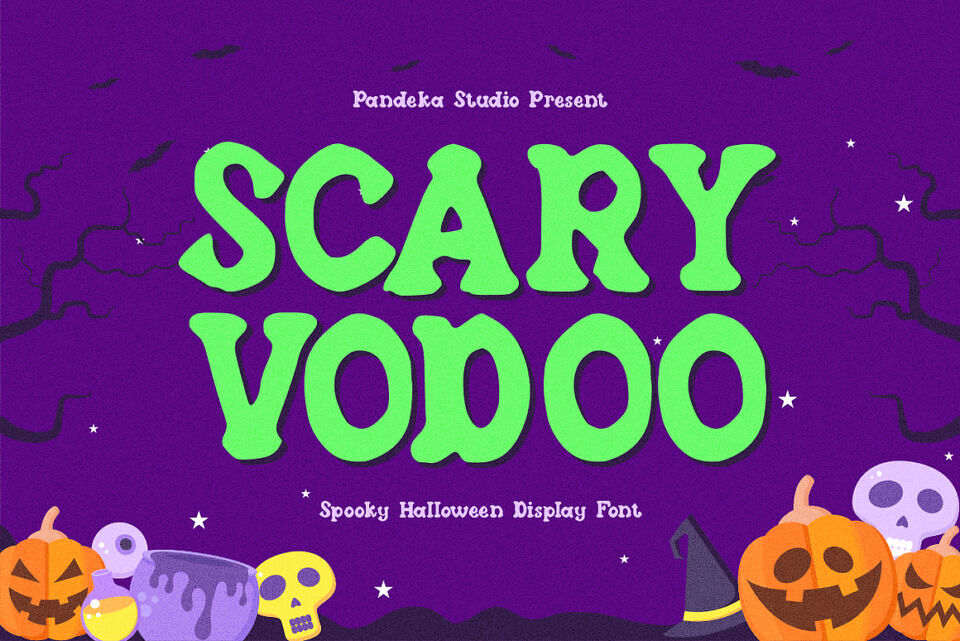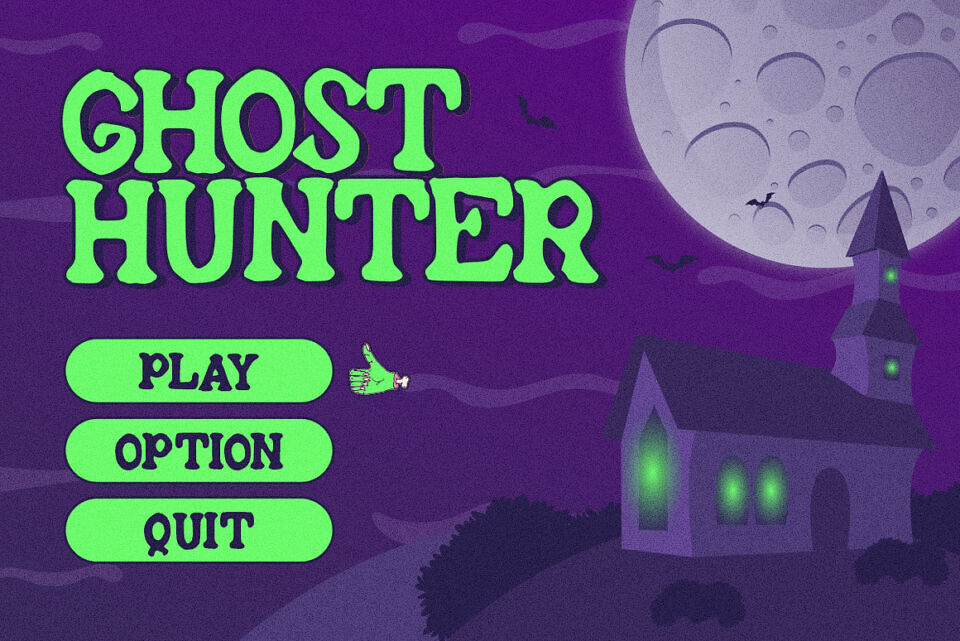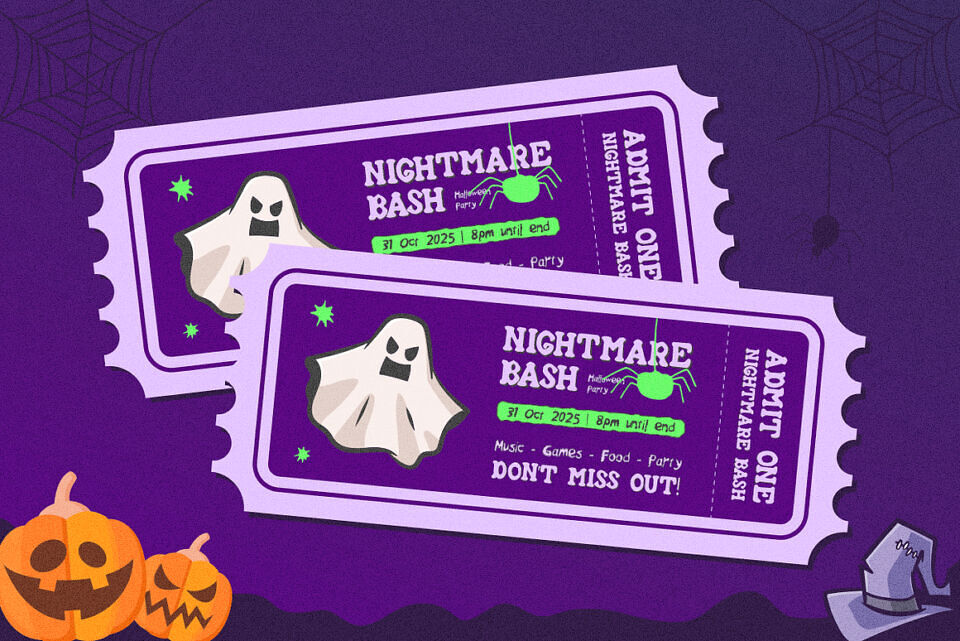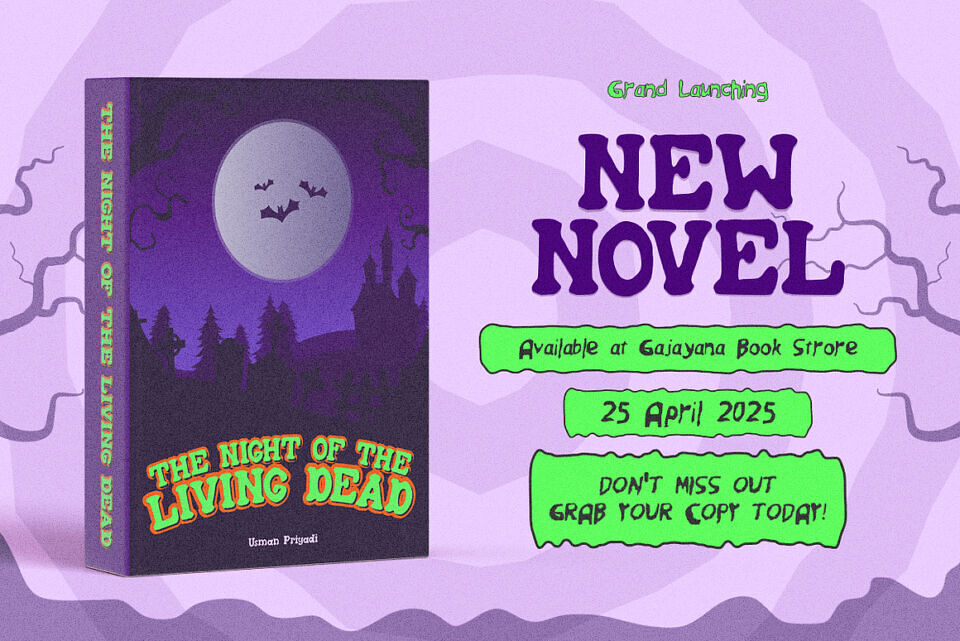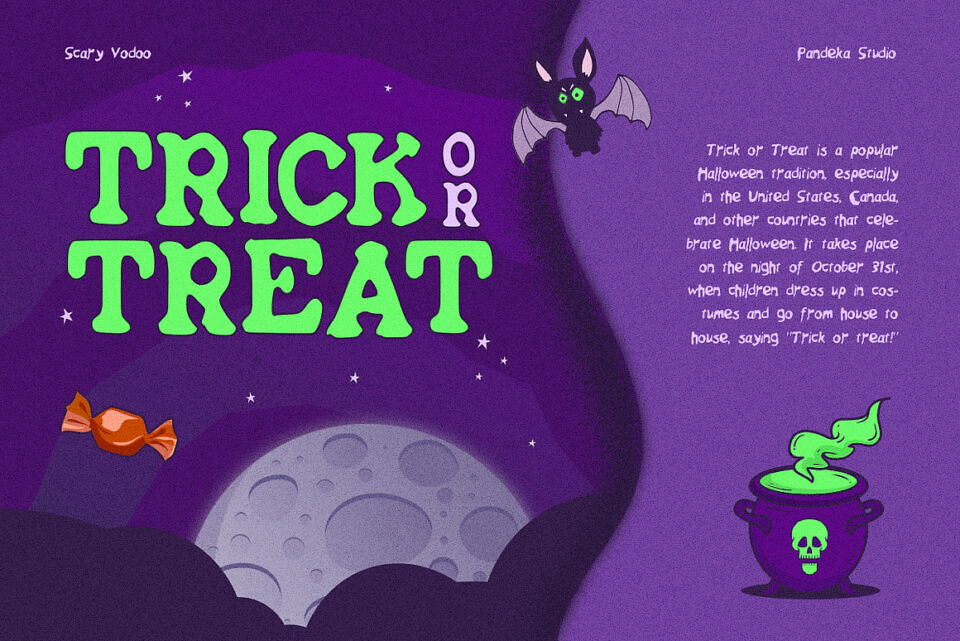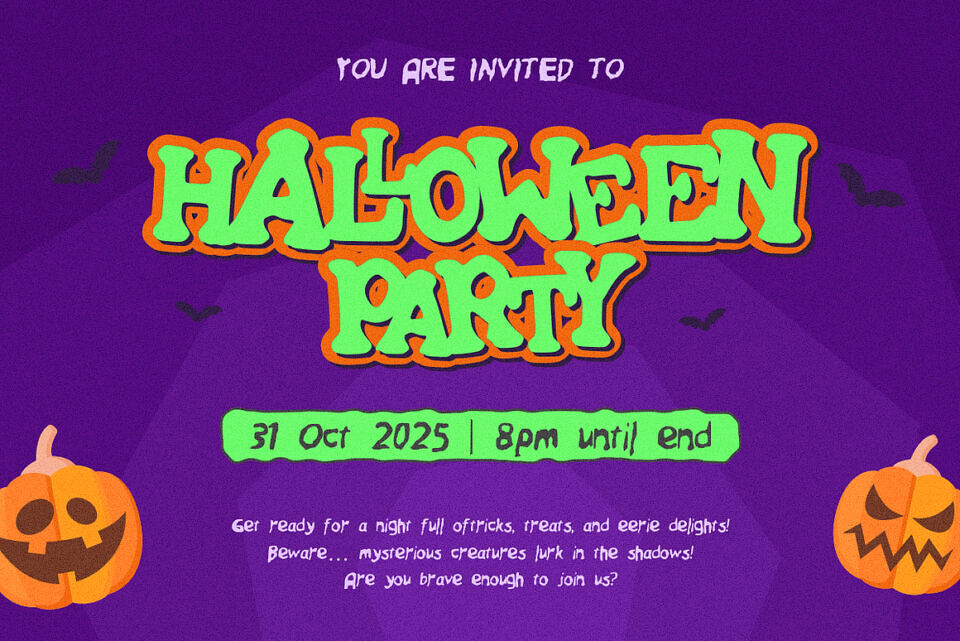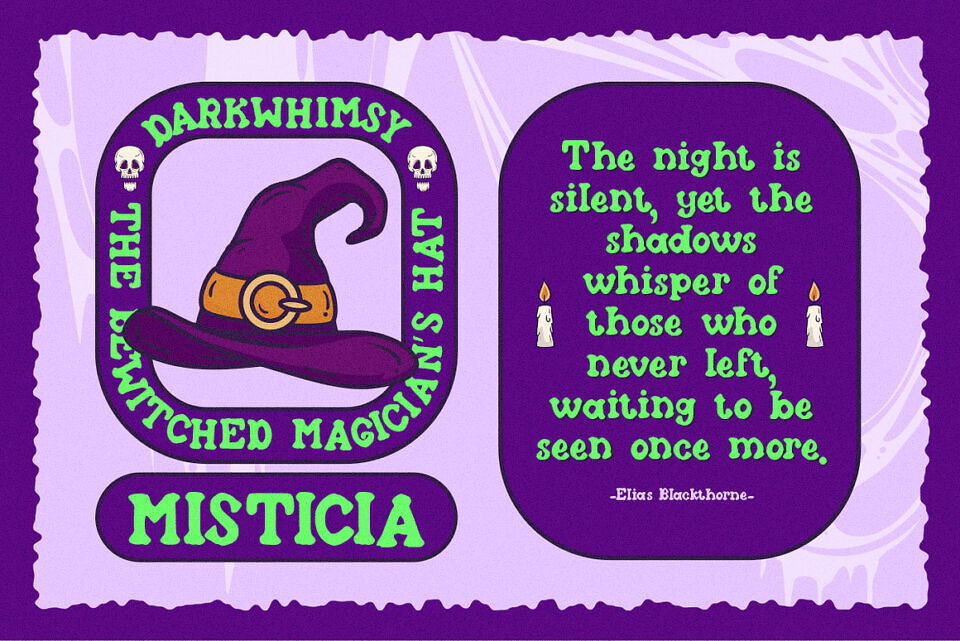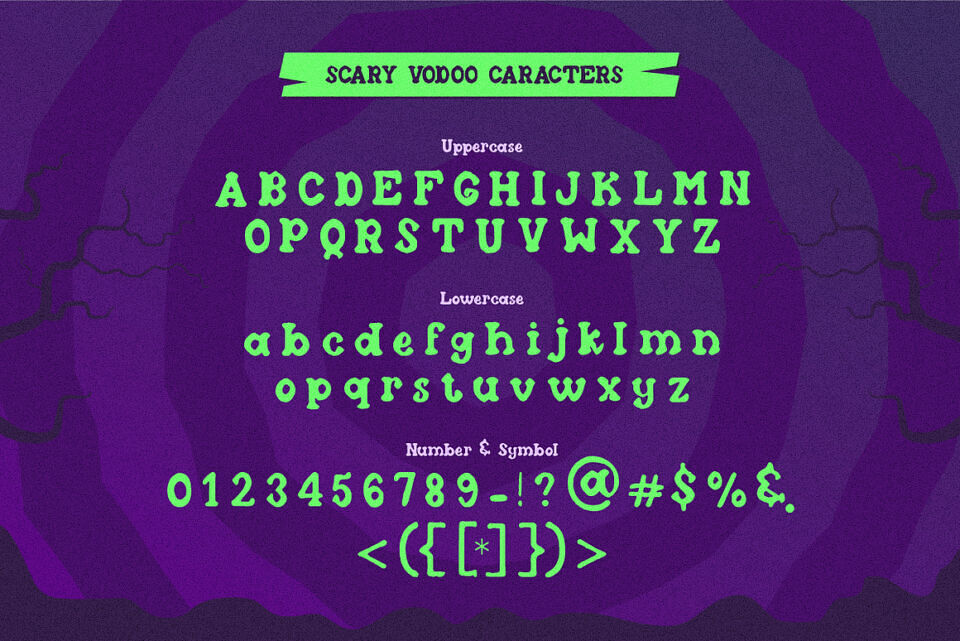
Scary Vodoo is a spooky display typeface with eerie, dripping details, perfect for horror posters, Halloween invitations, haunted house flyers, creepy branding, eerie packaging, and themed merchandise. Its haunted style and unique lettering add the perfect touch of chilling aesthetics to any design.